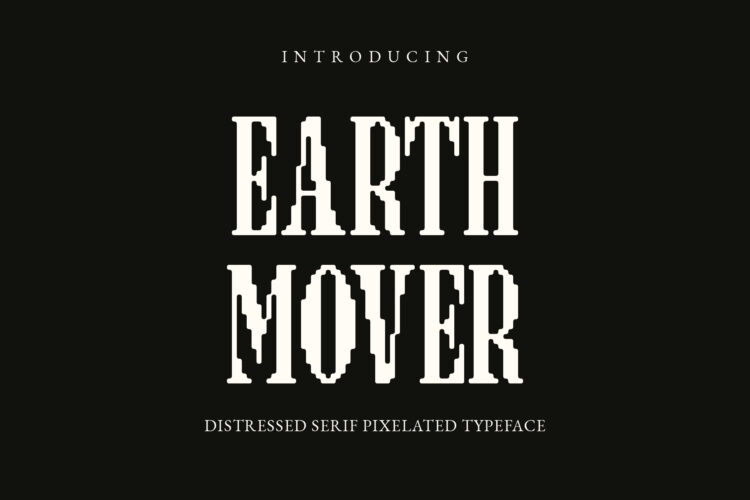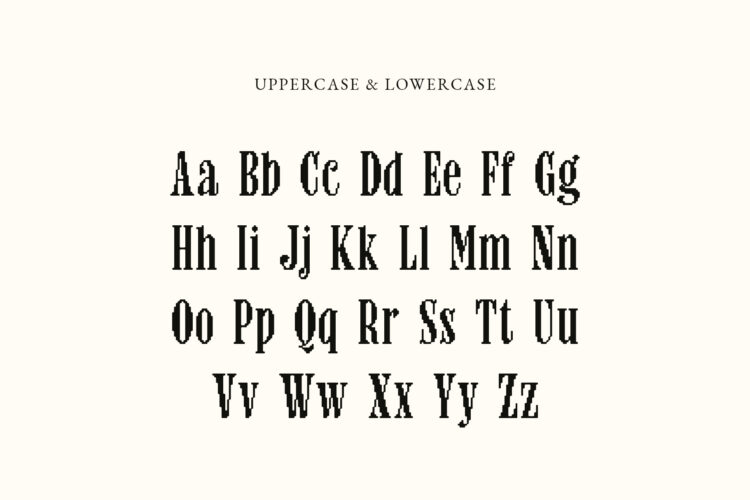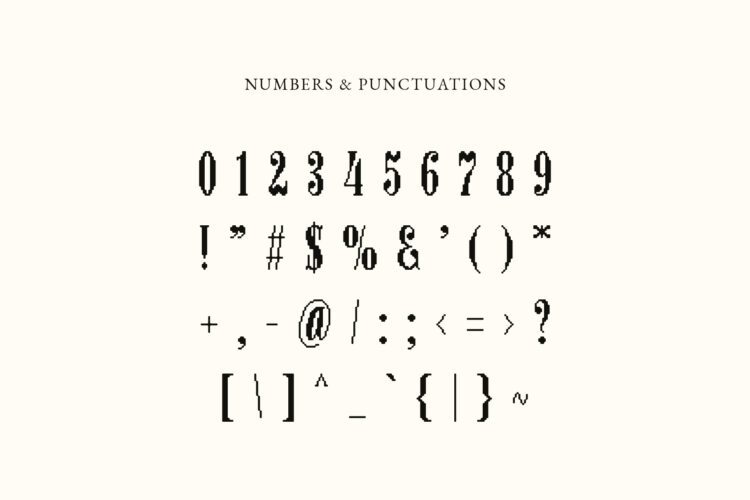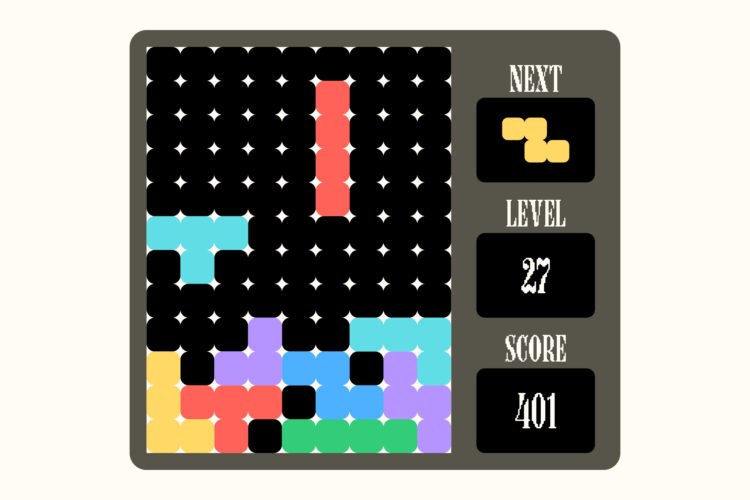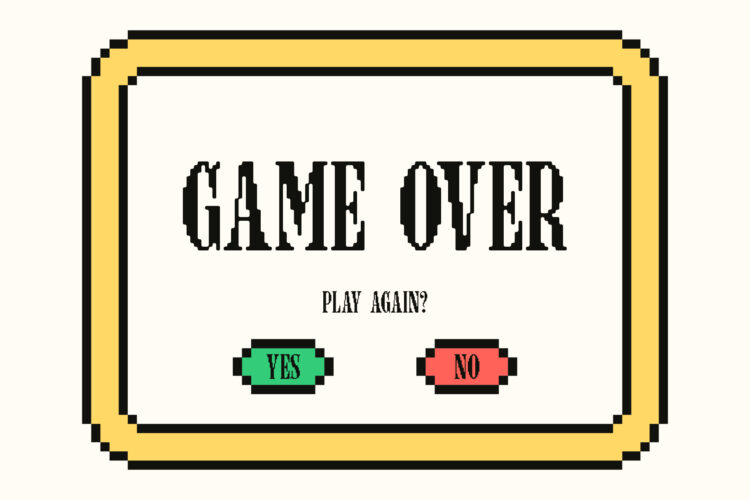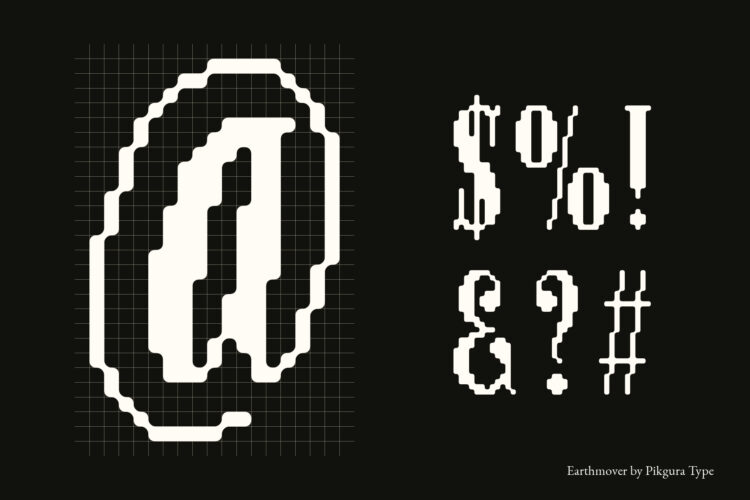
Earthmover
Earth Mover is a gritty pixel display font packed with playful chaos and retro attitude. Featuring distressed details, rounded forms, and a bold digital look, this font is built for designs that want to be loud, fun, and impossible to miss.
From posters, branding, packaging, merch, gaming visuals, social media, to experimental creative projects, Earth Mover brings a raw pixel aesthetic with a quirky personality.
Designed to break the rules, keep things playful, and make every design hit harder.
Earth Mover – Pixelated Font